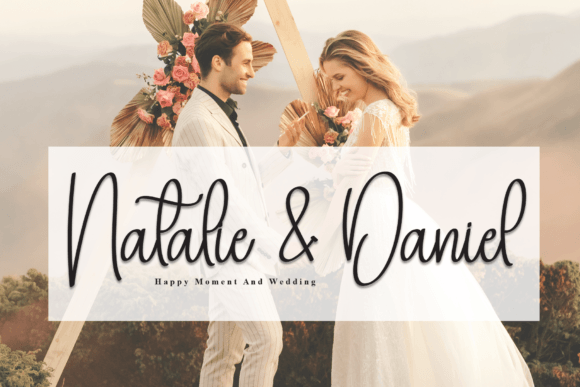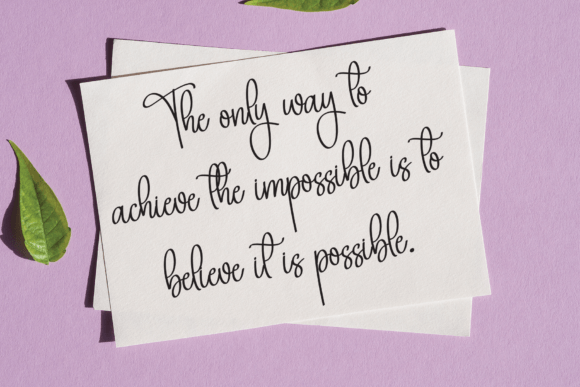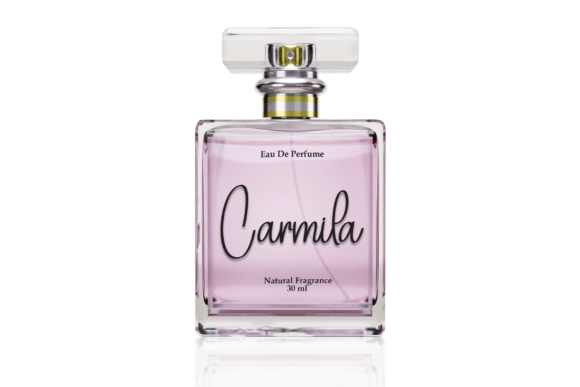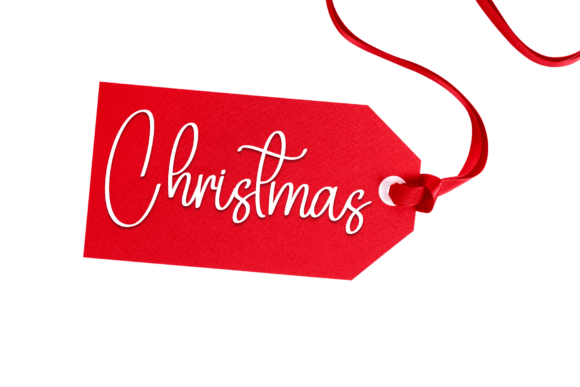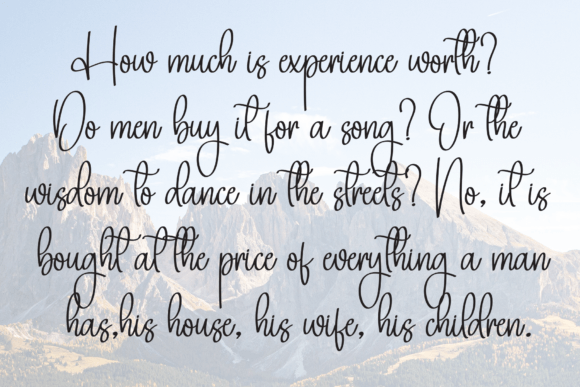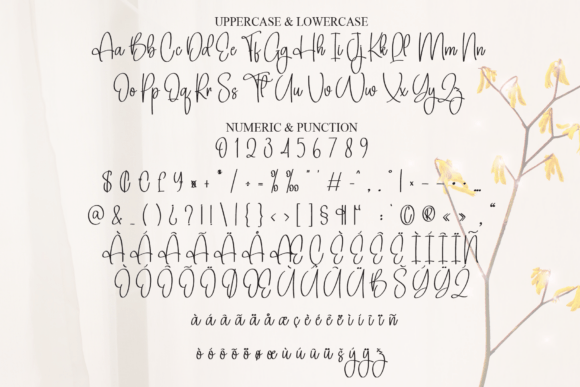
Baby Anything Font: The Perfect Addition to Your Design Arsenal
Are you a designer or crafter looking for a font that exudes warmth and friendliness? Look no further than the Baby Anything Font. This charming handwritten font is designed to bring a touch of sweetness to any project, making it perfect for baby announcements, nursery decor, and more.
What Makes Baby Anything Font So Special?
Baby Anything Font is a unique and captivating typeface that features playful, rounded letters. Its casual style gives off a warm and friendly vibe, making it an excellent choice for designers and crafters who want to add a personal touch to their work. Whether you’re creating custom baby shower invitations, nursery wall art, or adorable greeting cards, this font is sure to impress.
Key Features of Baby Anything Font
- Playful and Rounded Letters: The font’s rounded letters give it a soft and cuddly feel, making it perfect for projects that require a touch of whimsy.
- Casual Style: The font’s casual style makes it easy to read and adds a warm, friendly feel to any project.
- Easily Readable: The font is designed to be easy to read, making it perfect for use in a variety of projects, from baby announcements to nursery decor.
- Personal Touch: The font’s unique and handmade feel adds a personal touch to any design, making it perfect for crafters and designers who want to create something special.
Uses for Baby Anything Font
Baby Anything Font is a versatile typeface that can be used in a variety of projects, including:
- Baby Announcements: Create custom baby announcements that are both adorable and informative.
- Nursery Decor: Use the font to create custom wall art, nursery signs, and other decorative items for the nursery.
- Greeting Cards: Add a touch of sweetness to your greeting cards with this charming font.
- DIY Projects: Use the font to create custom labels, tags, and other embellishments for your DIY projects.
Why Designers and Crafters Love Baby Anything Font
Designers and crafters love Baby Anything Font for its unique and charming style. The font is easy to use and adds a personal touch to any project. Here are just a few reasons why designers and crafters can’t get enough of this font:
- Unique Style: The font’s playful and rounded letters make it stand out from more traditional typefaces.
- Easily Customizable: The font is easy to customize, making it perfect for designers and crafters who want to add their own personal touch.
- Versatile: The font can be used in a variety of projects, from baby announcements to nursery decor.
Tips for Using Baby Anything Font
Here are a few tips for using Baby Anything Font in your designs:
- Pair with Other Fonts: Pair the font with other complementary fonts to create a unique and visually appealing design.
- Use in Combination with Images: Use the font in combination with images or illustrations to add a touch of sweetness to your design.
Baby Anything Font is a charming and versatile typeface that’s perfect for designers and crafters who want to add a touch of sweetness to their projects. With its playful and rounded letters, casual style, and easily readable design, this font is sure to become a favorite in your design arsenal. Whether you’re creating custom baby announcements, nursery decor, or adorable greeting cards, Baby Anything Font is the perfect choice.